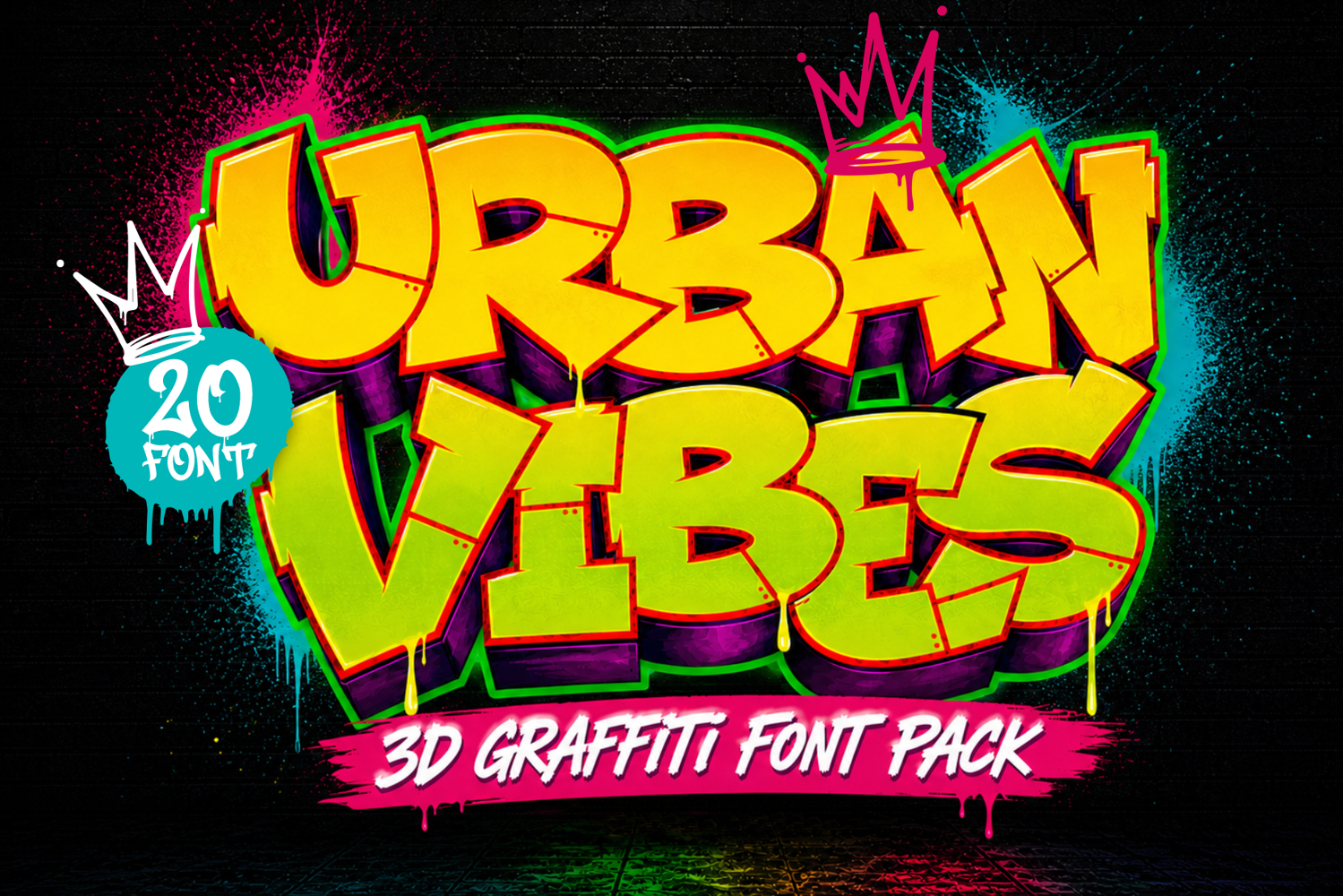
Graffiti Font Bundle Vol. 1 | Urban Vibes 3D Layered Street
Bring bold street energy into your designs with Graffiti Font Bundle Volume 1: Urban Vibes — a powerful collection of 20 high-impact 3D layered graffiti fonts crafted for creators who want authentic urban aesthetics.
This bundle is designed to deliver that raw, expressive street style seen in graffiti culture, hip-hop visuals, skate branding, and edgy digital artwork. Each font features a strong personality with layered depth, making it easy to create eye-catching typography with dimension and attitude.
• 20 Unique 3D Graffiti Layered Fonts
• Uppercase Characters
Font List:
1. JUICY SNAP
2. ENDLESS FUSION
3. VANDALS WUPZ
4. VANDAL BLOW
5. MURALS TRIBE
6. SUBWAY RIFFLE
7. KING JACK STYLE
8. HIPER HOPER
9. METRO GRAFFI
10. THE BOLDER SHADOW
11. DYNAMIX STREET
12. MONOSOCK
13. BUBBLE BLOCK
14. GRAFFIX IMPACT
15. STREET AIR
16. JRAOT
17. RIFT PUNK
18. MORP CAPS
19. STREET SHADE
20. HEAVY JACK